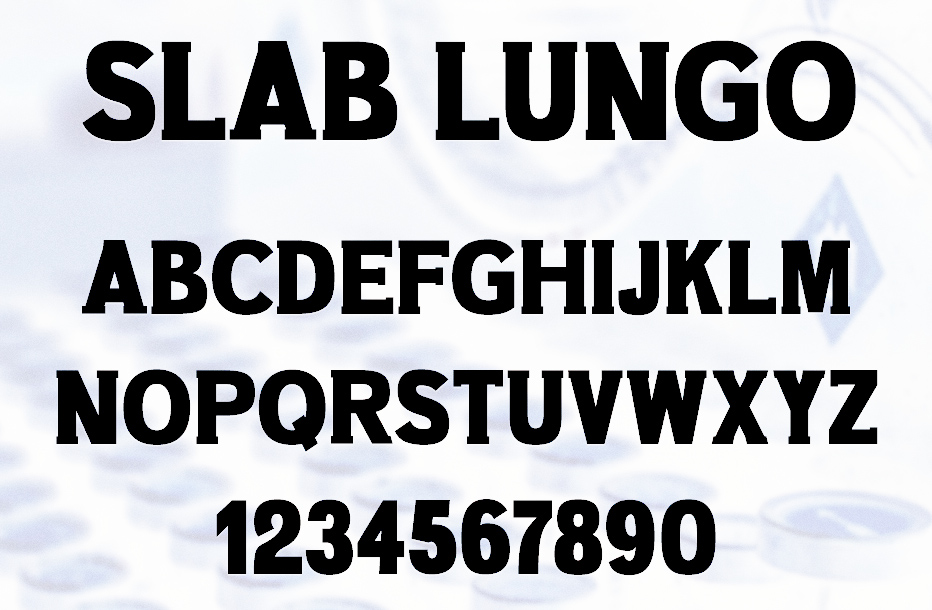
Vladimir Carrer
Verona, Italy-based web designer. In 2015, he made the commercial typefaces Hand Drawn Font, Monster Font and Hammer Font (spurred vintage style).